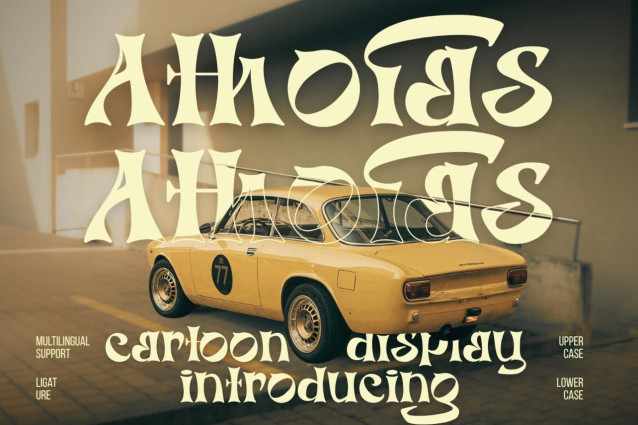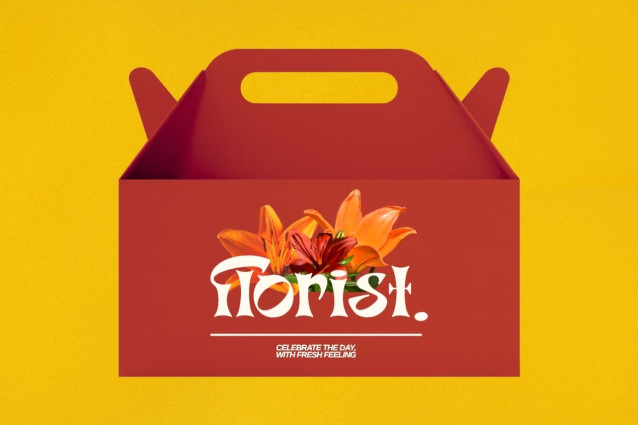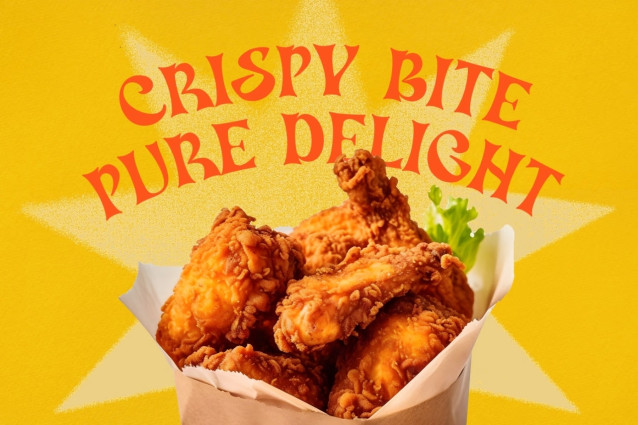
Introducing **Athofas – Cartoon Display Font**
Athofas – Cartoon Display Font is a Bold vintage style serif font with strong character and soft features. modern and classic serif font with a clear and bold look. It’s a very versatile font that works great in large.
Athofas was built with stylistic Ligature makes your project will be awesome! Perfect for editorial projects, Logo design, web font, clothing branding, product packaging, magazine headers, or simply as a stylish text overlay to any background image.